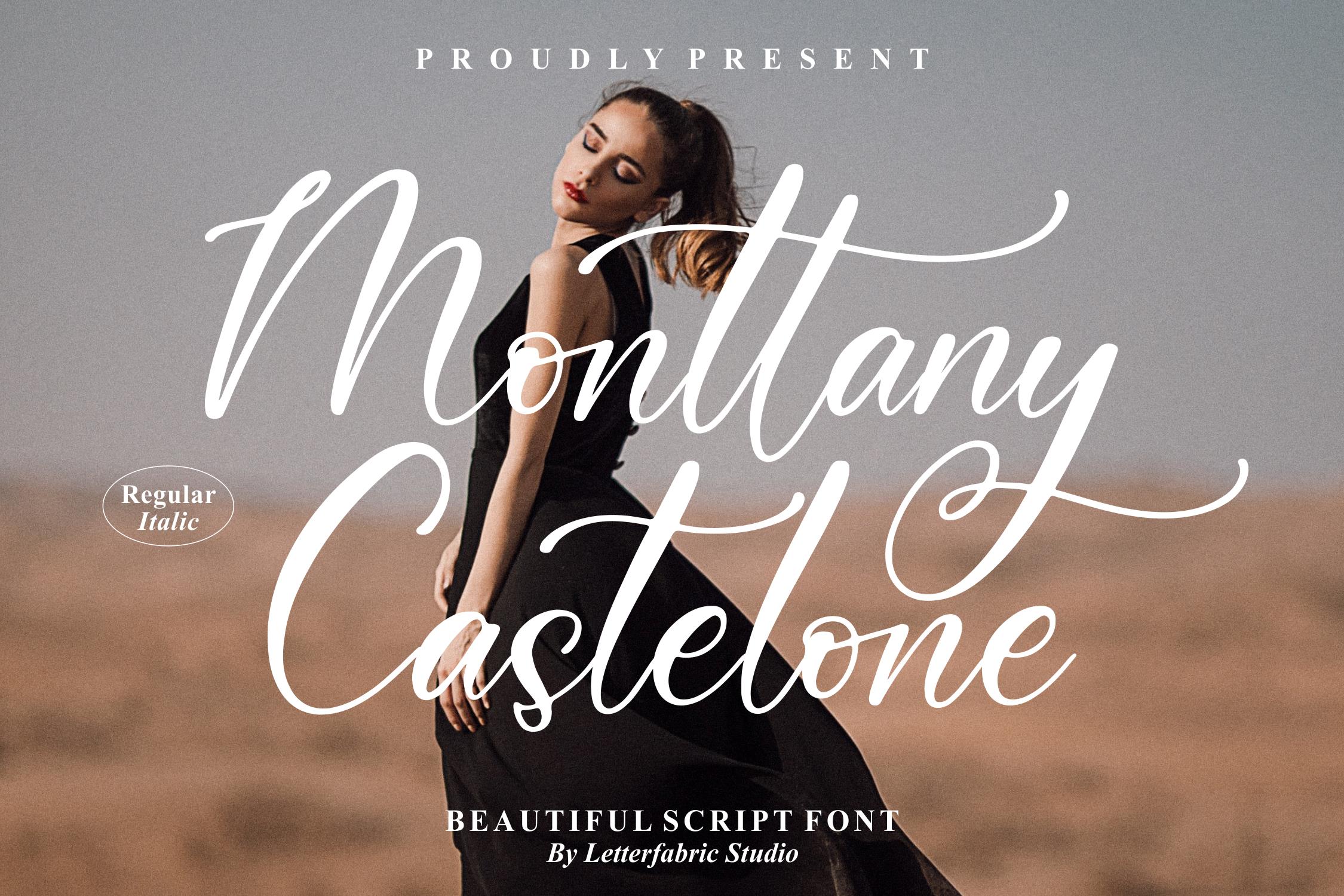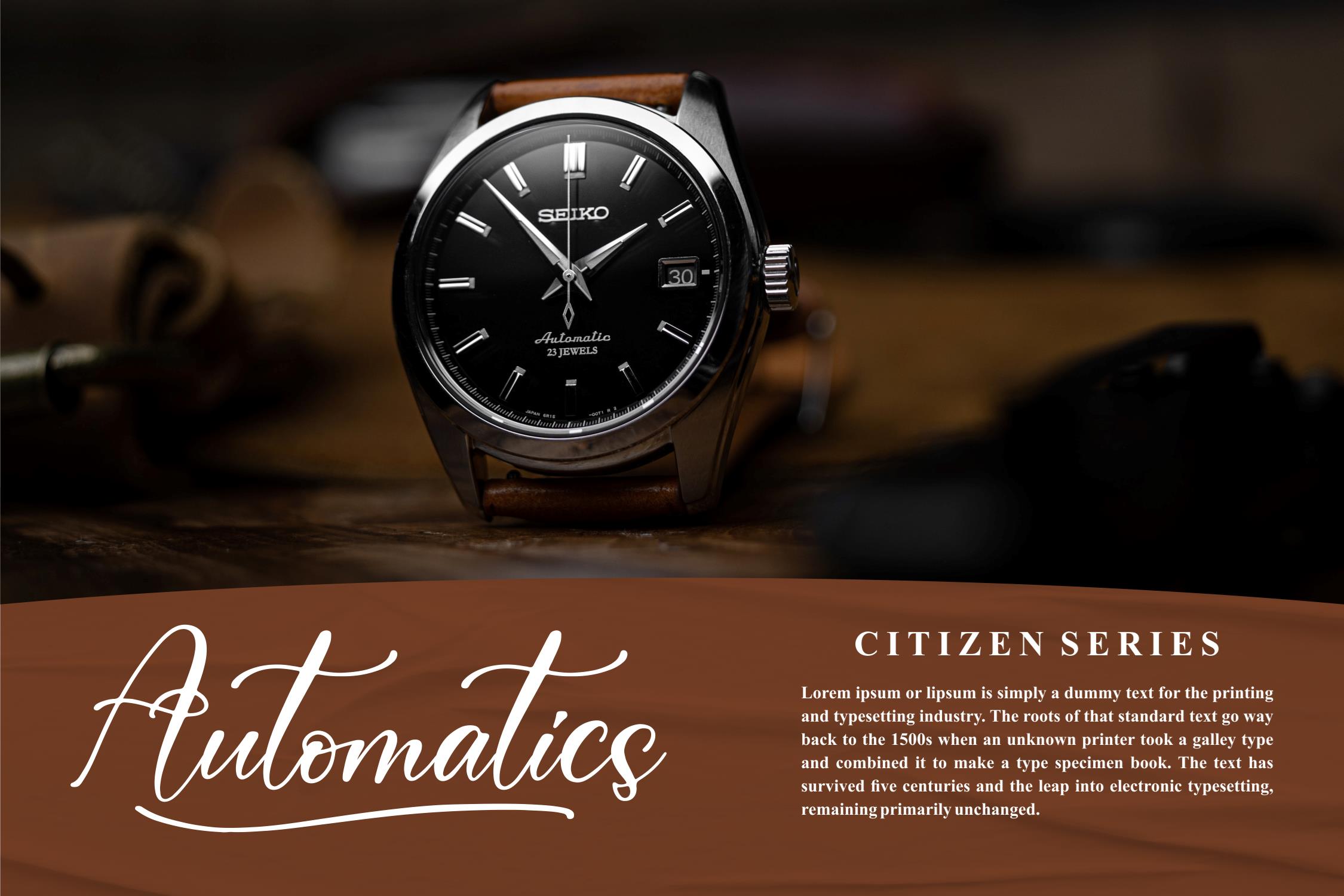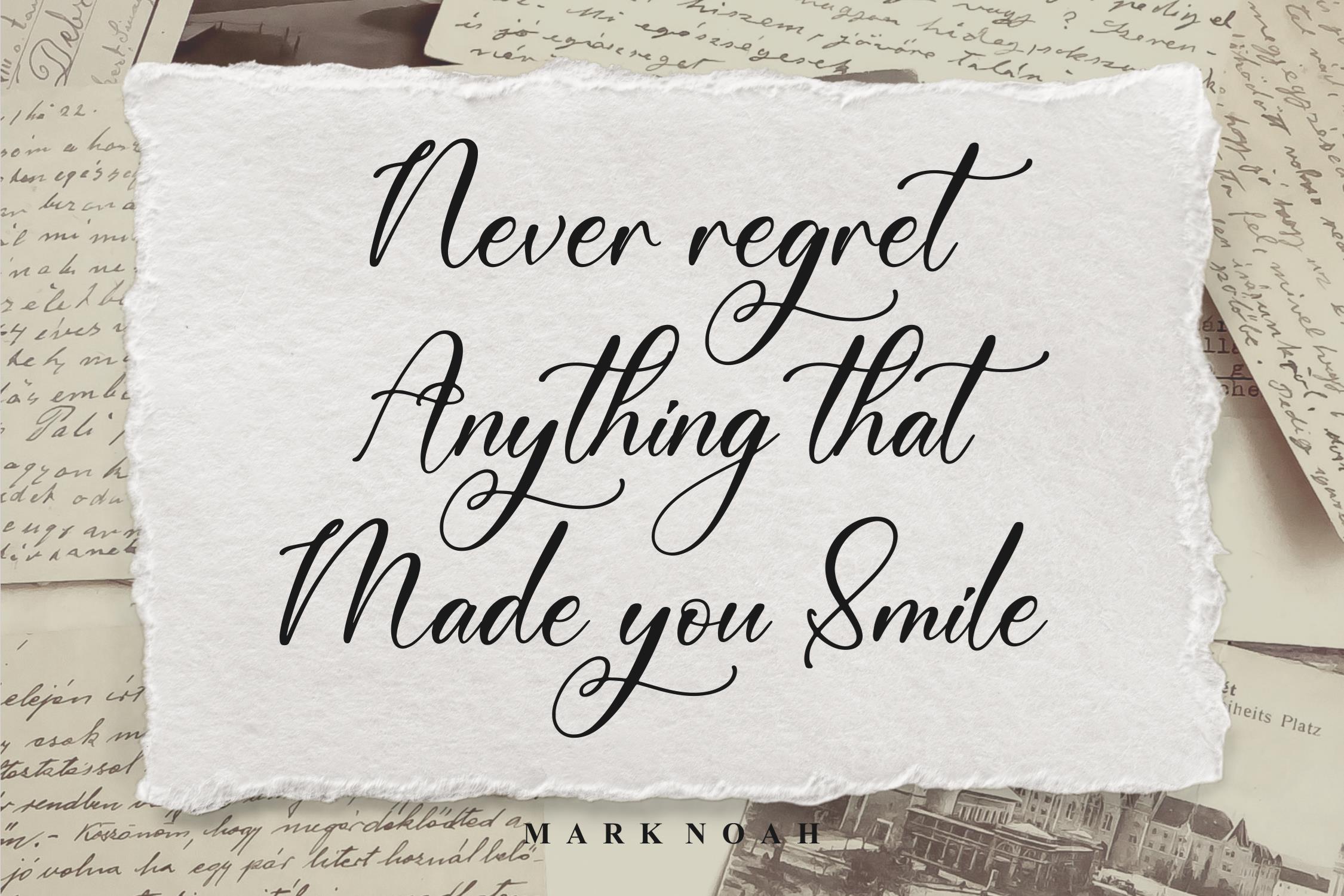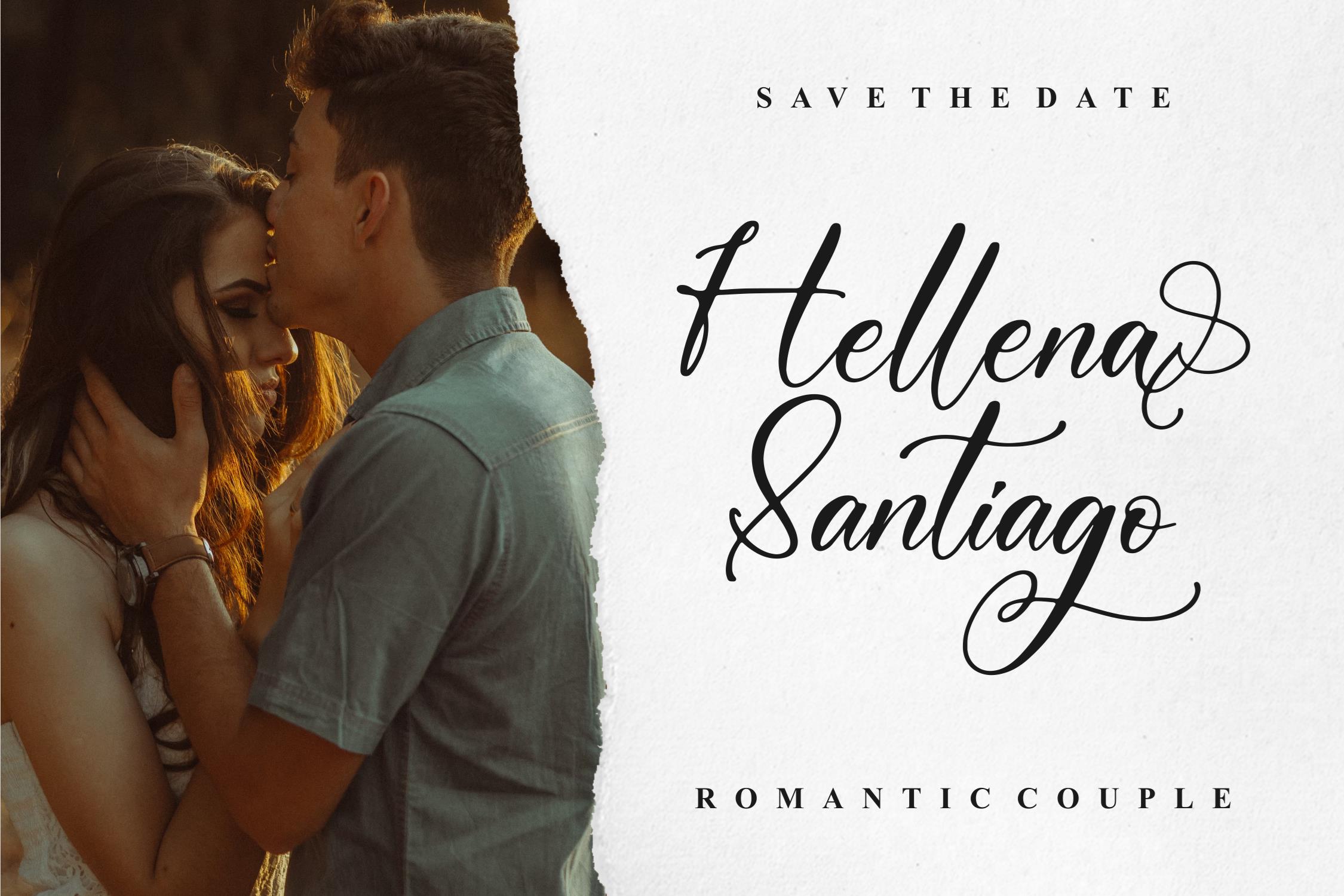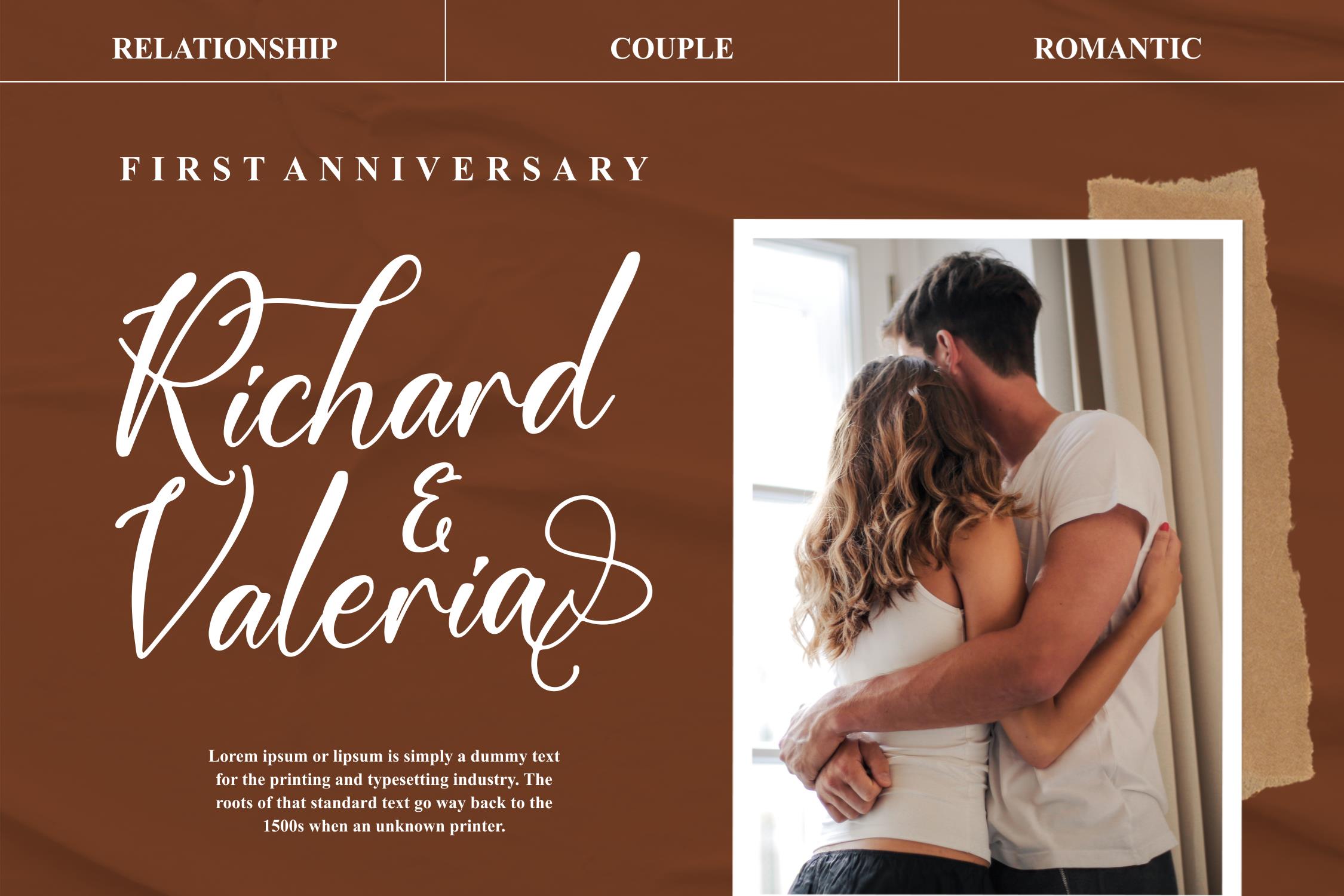
Monttany Castelone Font
Monttany Castelone Script Font
This is a beautiful script font, suitable for any projects such as: logos, branding projects, homeware designs, product packaging, mugs, quotes, posters, shopping bags, t-shirts, book covers, name card, invitation cards, greeting cards, label, photography, watermark, special events, and all your other lovely projects that need a beautiful script taste.